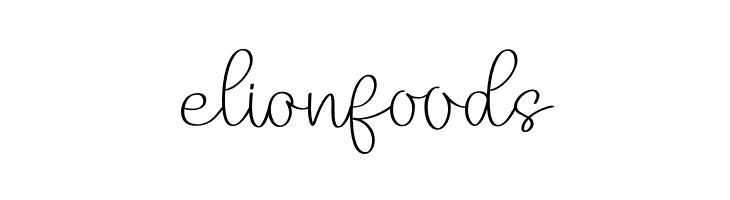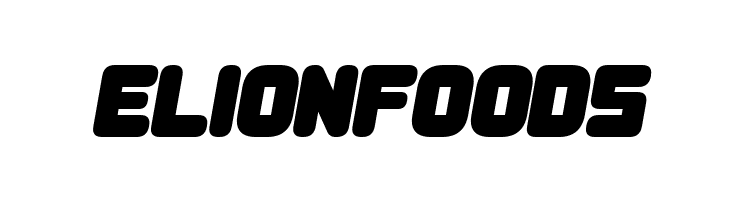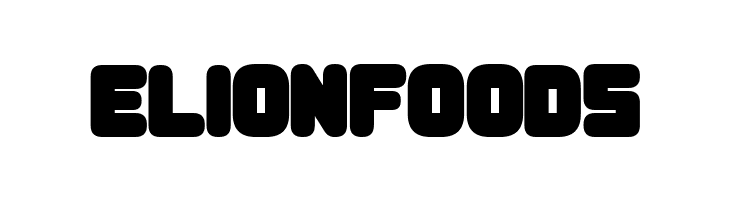
An artistic font with detailed bird illustrations within each letter.
A decorative font with letters filled with detailed bird and foliage illustrations.
Playful handwritten script font.
A bold, rounded font with a playful and modern aesthetic.
An ornate and decorative font with intricate details and a historical flair.
A bold, rounded font with uniform strokes and a modern, geometric style.
A bold, rounded, and italic font with a modern and friendly appearance.
A bold, rounded, and italic font with a modern, playful style.
A bold, rounded font with a modern and playful style.
A decorative and flowing font with artistic letterforms.